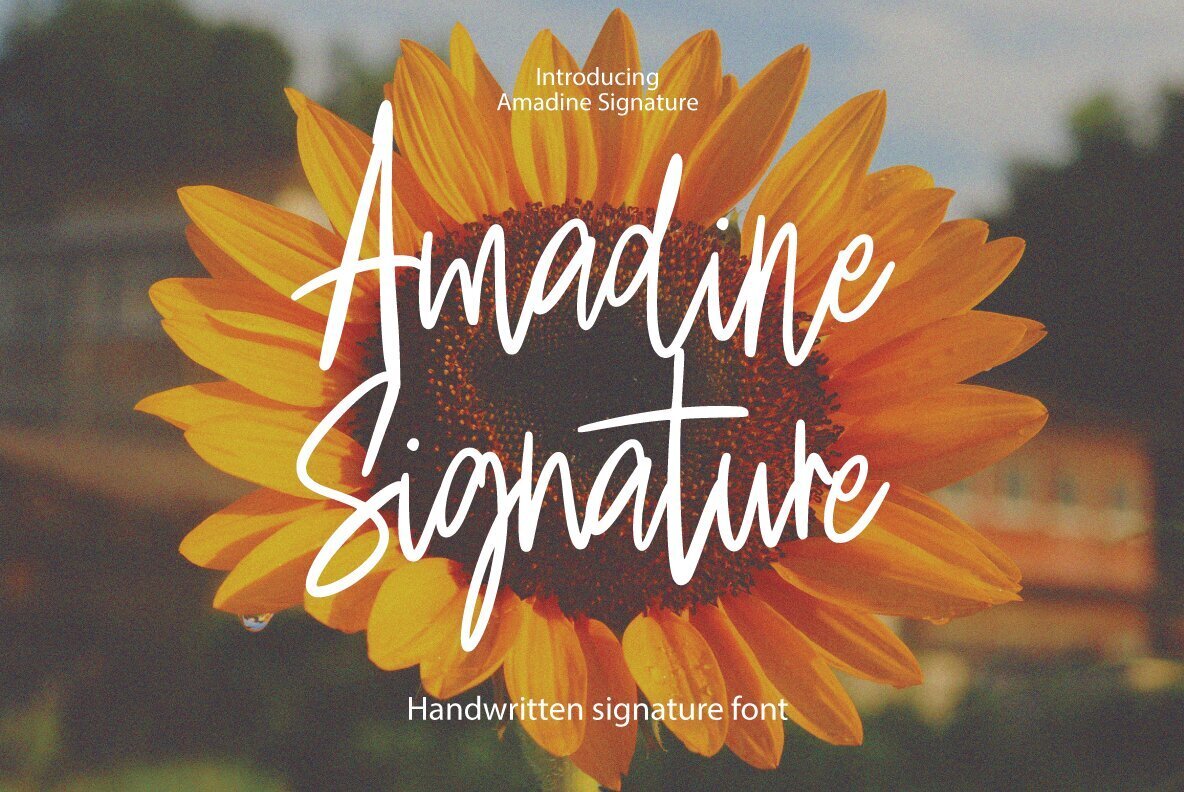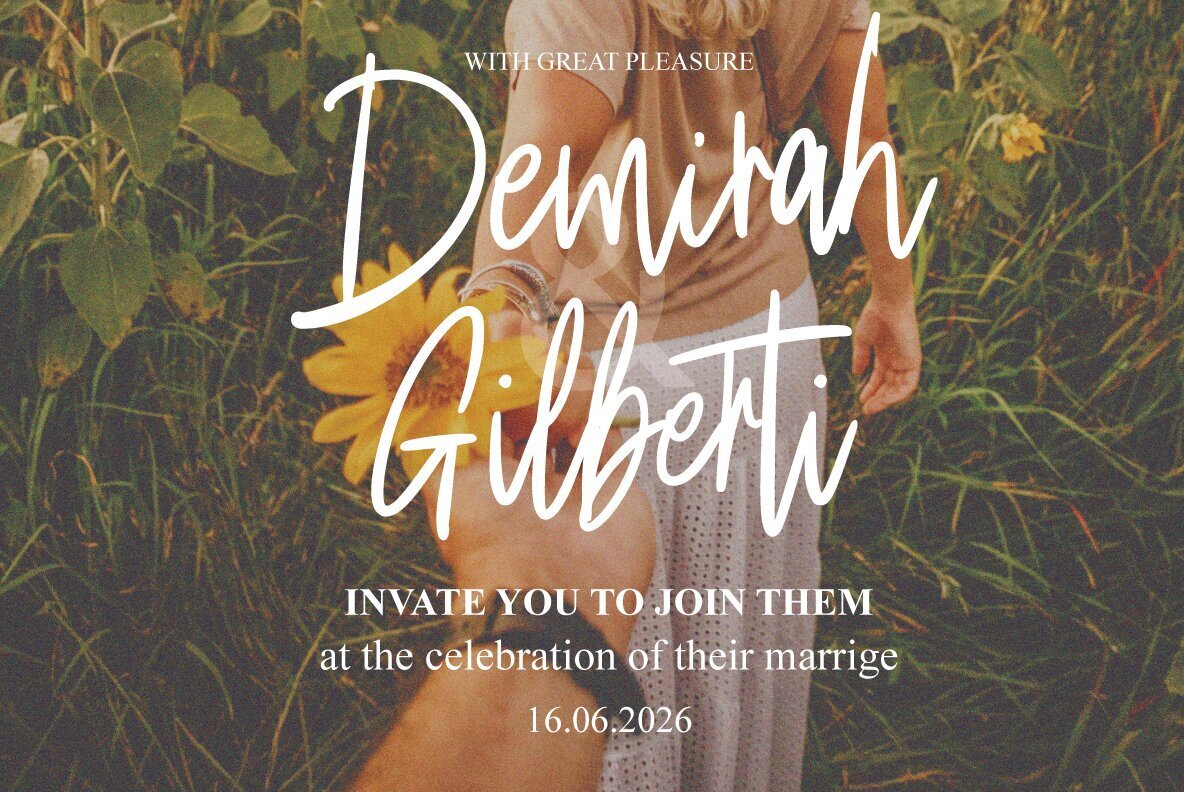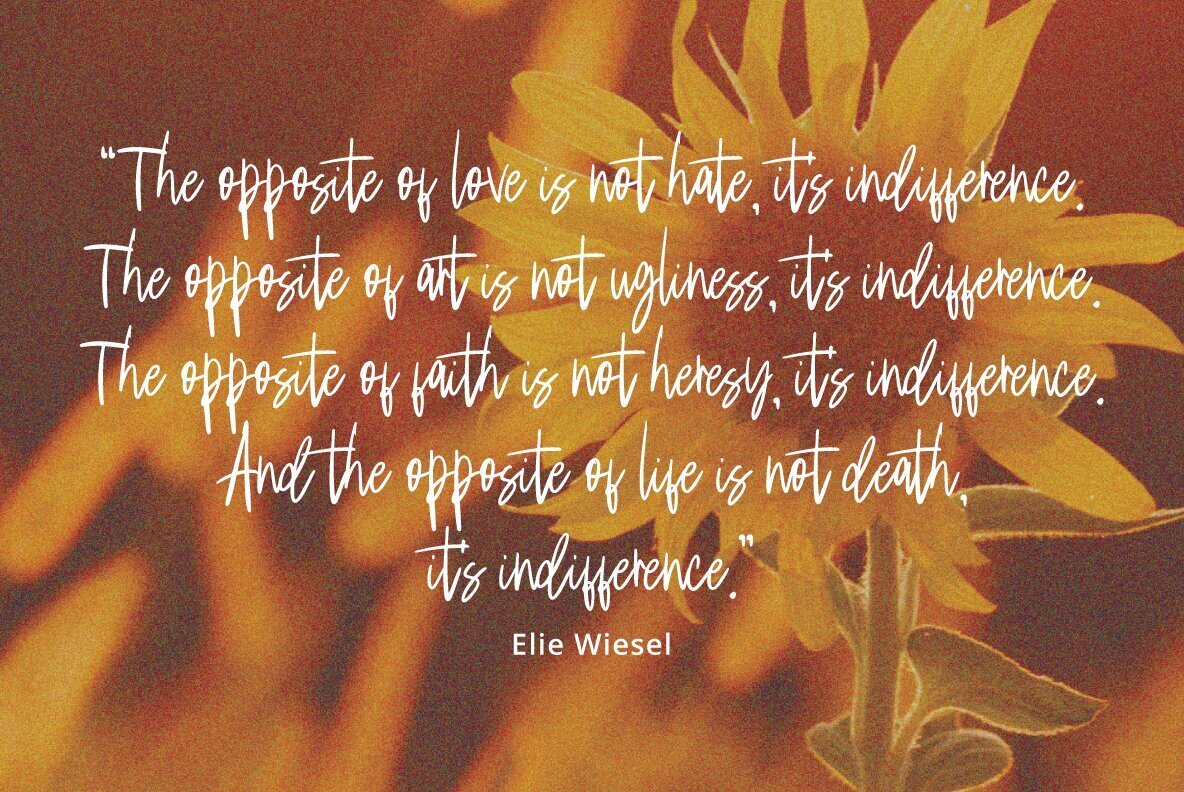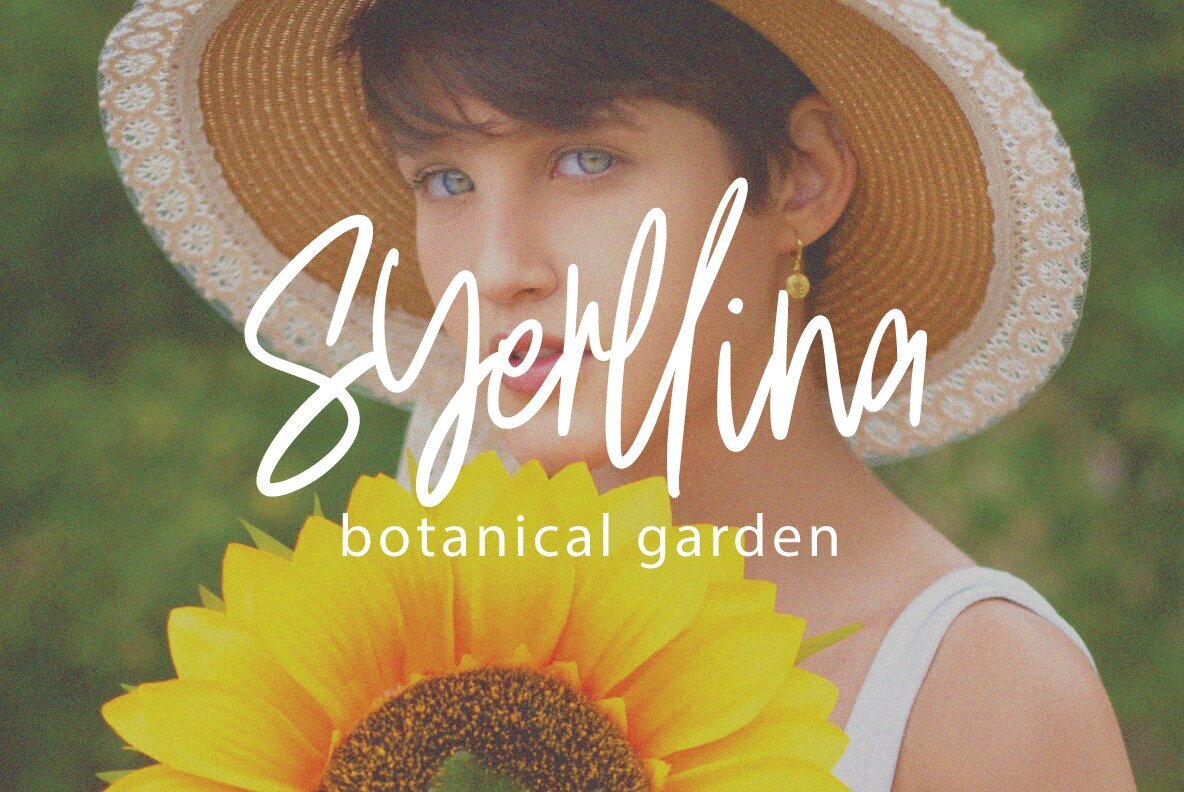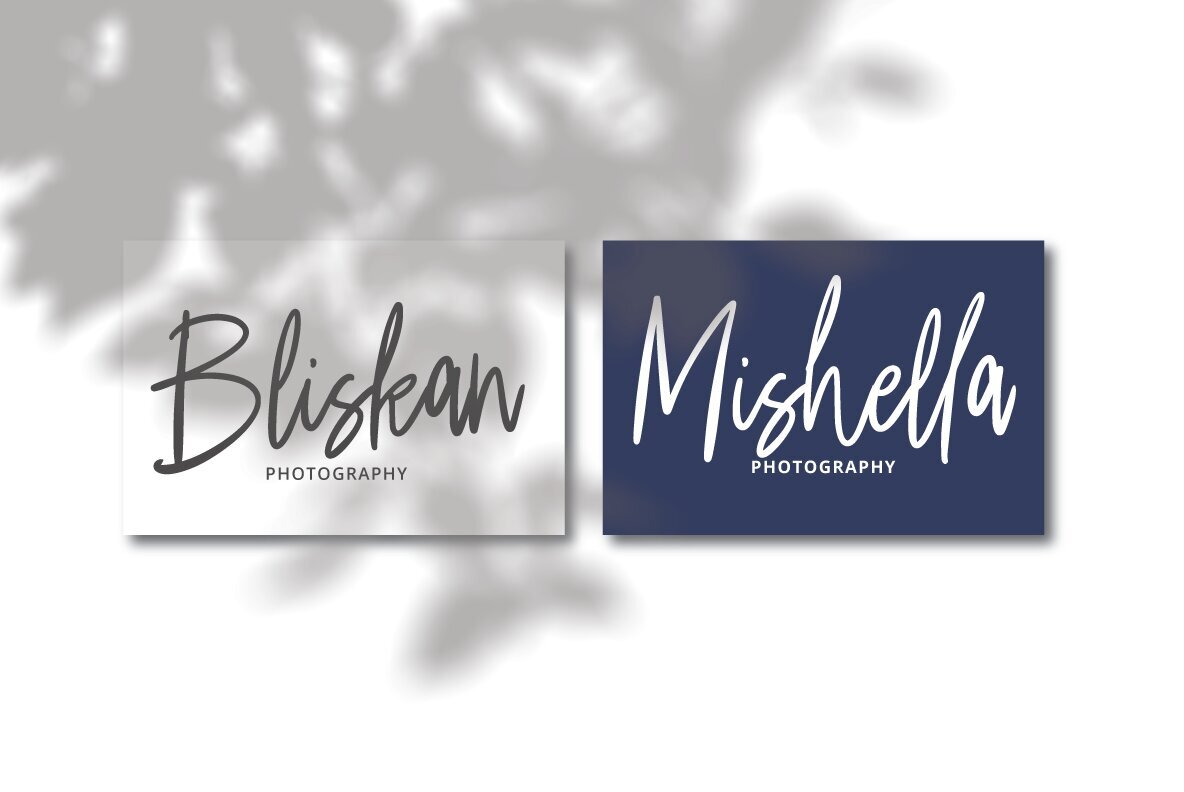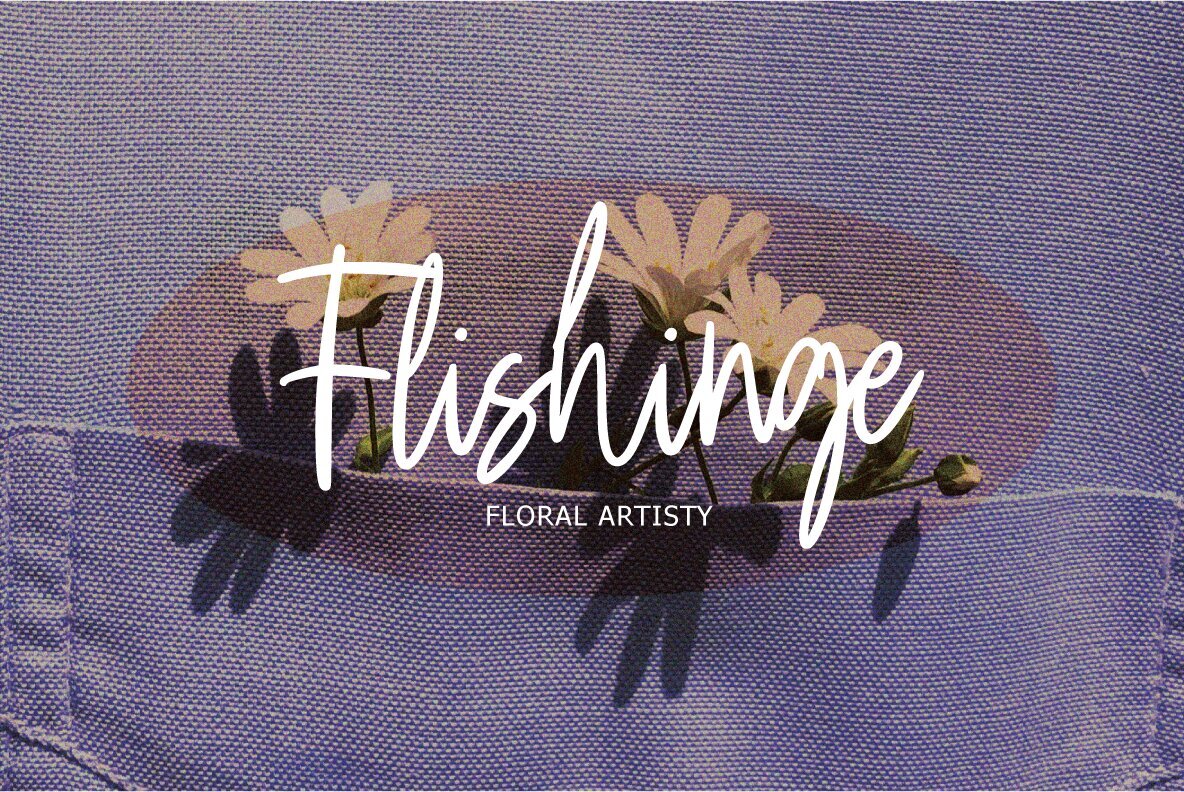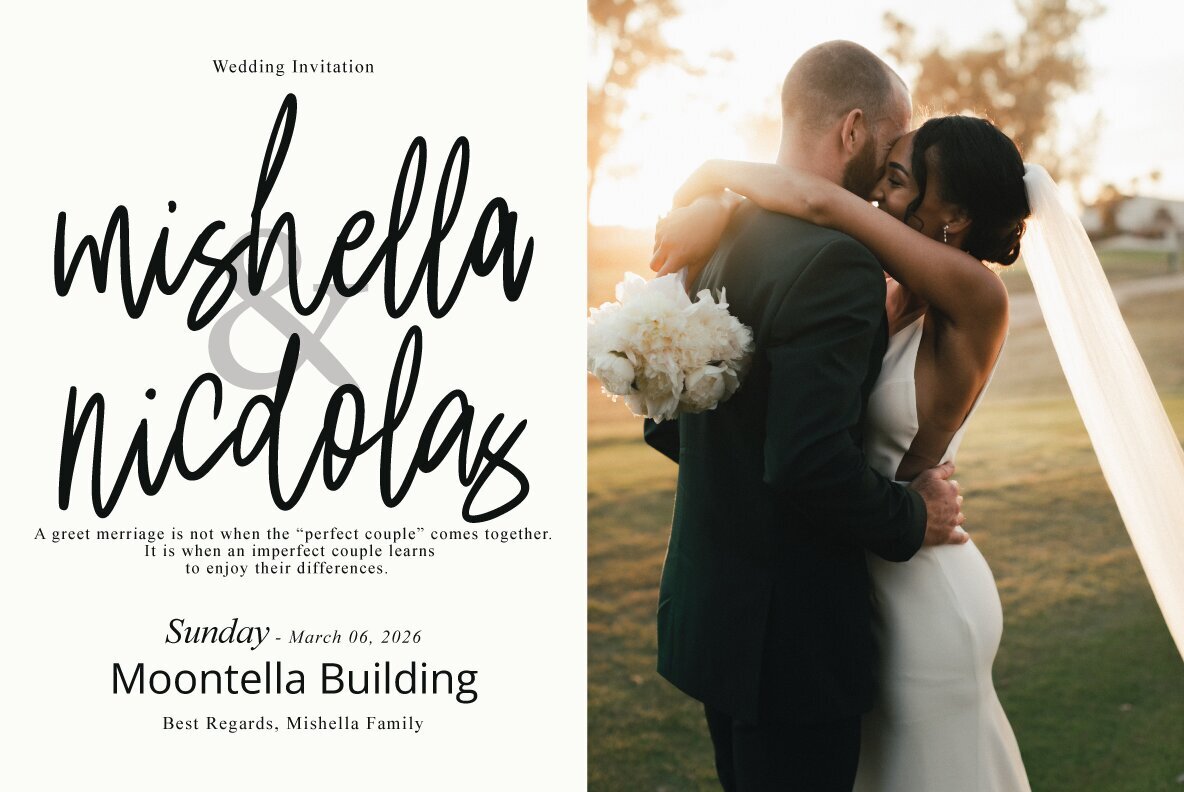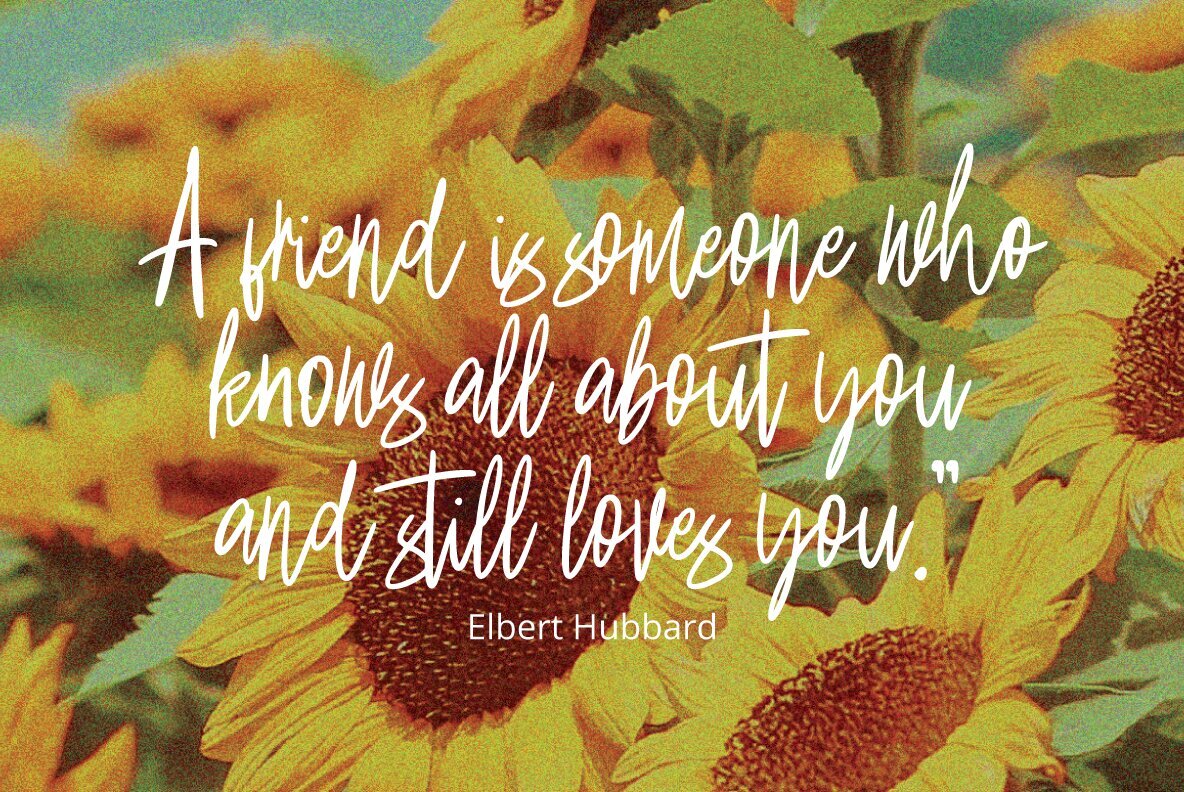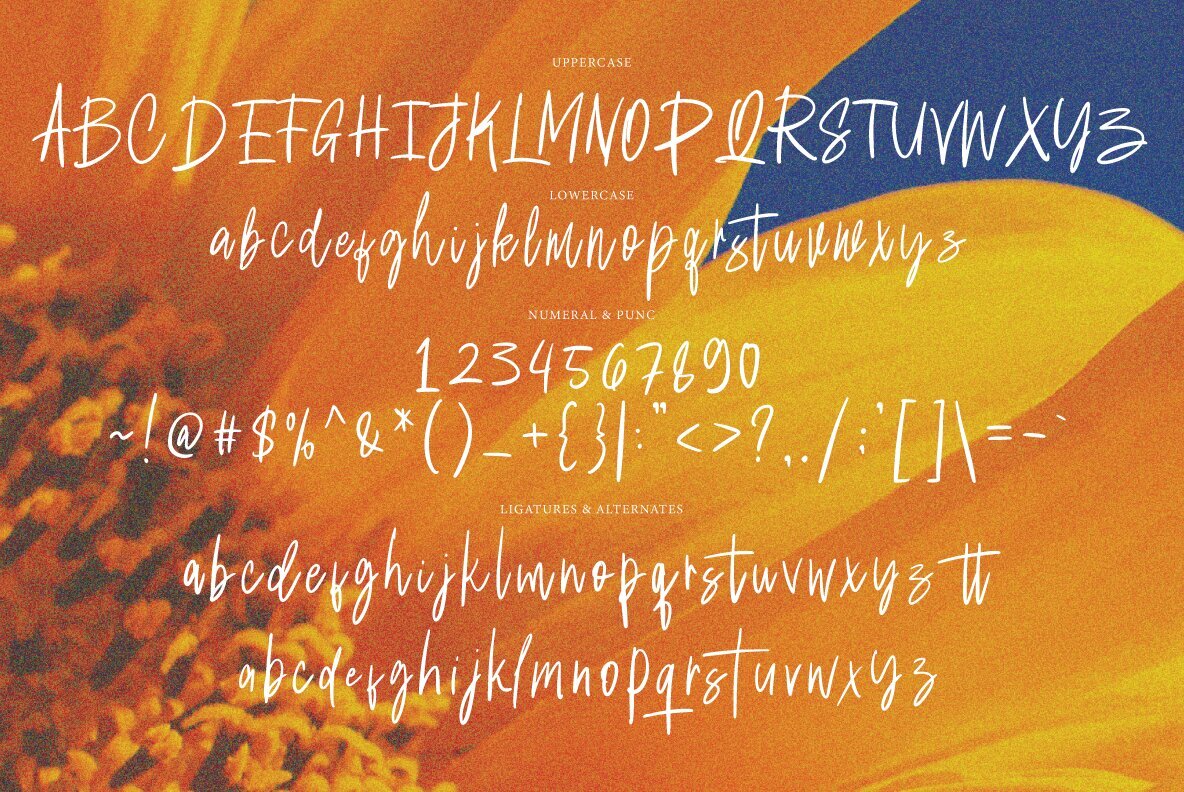
Amadine Signature Font
Amadine Signature is a sophisticated addition to any designer's toolkit, offering an elegantly handcrafted style. Its decorative characters and vibrant baseline infuse warmth and personality into greeting cards, branding materials, business cards, quotes, and posters. This font boasts over 200 glyphs, including OpenType features such as Swash, Stylistic Sets, Stylistic Alternates, and Ligatures. Ideal for OpenType savvy programs like Adobe Illustrator, InDesign, Photoshop, Corel Draw X, and Microsoft Word, Amadine Signature is equipped with PUA Unicode, ensuring effortless access to all alternate characters for artisans and designers alike. Features: Those without OpenType-compatible programs, such as Adobe Illustrator or CorelDraw X, can explore all alternate glyphs using Font Book on Mac or Character Map on Windows.Amadine Signature: A Graceful Handwritten Typeface